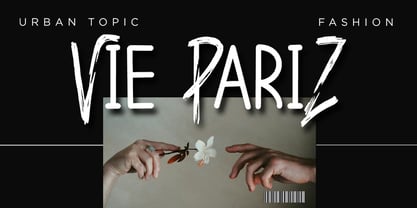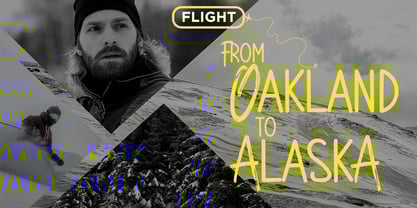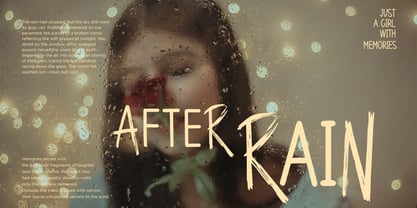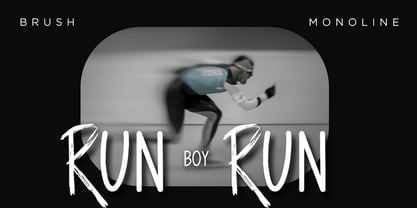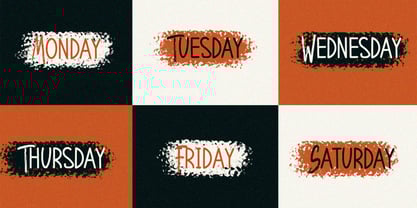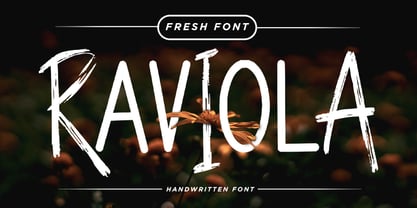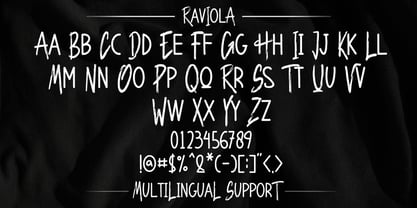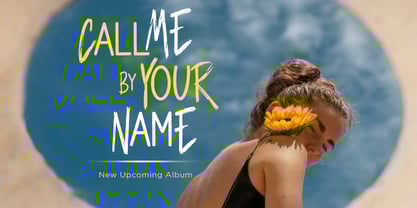
Raviola
by DM Studio
The Raviola Font Family was designed by Dimas Prasetyo and published by DM Studio. Raviola contains 1 styles.
Raviola is a fresh handwritten brush font that brings a unique twist to your designs by blending expressive brush strokes with sleek monoline lines. Whether you're creating logos, packaging, social media graphics, or invitations, this handwritten brush font offers the perfect combination of edgy energy and stylish charm.
Designed with a mix of uppercase brush letters and monoline lowercase characters, Raviola adds handcrafted authenticity to any project. Each letter captures the raw motion of hand-drawn strokes, giving your work an organic, spontaneous feel. The clean lines of the monoline structure balance it with clarity and modern appeal.
Font Features:
• Uppercase Brush & Monoline Lowercase combo
• True Handwritten Texture
• Multilingual Support
Whether you're designing bold statements or subtle handwritten notes, Raviola is your go-to handwritten brush font. Its handcrafted look will make your work feel custom, heartfelt, and instantly memorable.